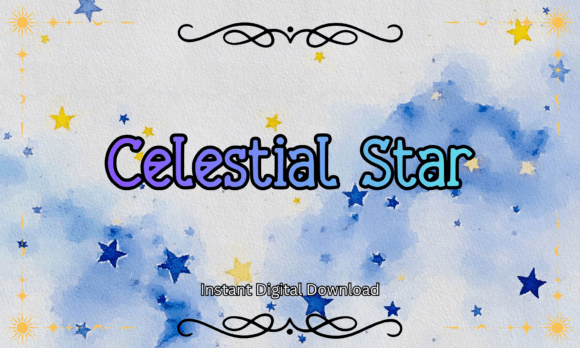
Unlock Your Creativity with Celestial Star Font
Have you ever stared up at the night sky, feeling inspired by the twinkling stars and the endless possibilities they represent? As a designer, you know that moments like these can spark some of your most creative ideas. And that’s exactly what the Celestial Star Font is designed to capture – the magic and wonder of the celestial world, in a font that’s as cute as it is versatile.
Celestial Star Font is a rounded display font that adds a soft, playful touch to any design. With its star-inspired details and dreamy aesthetic, it’s the perfect choice for creators who want to add a little bit of magic to their work. Whether you’re designing stickers, logos, or social media graphics, this font is sure to bring a smile to your face and a touch of whimsy to your designs.
- Hand-drawn, cosmic-inspired design
- Extensive language support, including Cyrillic, Greek, and Devanagari scripts
Celestial Star Font Review
First of all, I’d like to say that the Celestial Star Font is a visually stunning font that’s perfect for any project that needs a touch of magic ✨. The font’s unique blend of celestial and star-inspired elements gives it a whimsical feel that’s sure to captivate your audience.
- The font’s bold and vibrant style makes it perfect for headings and titles ✨.
- The numerous weights and styles available make it easy to customize the font to fit your project’s needs ✨.
- The font is highly legible, even at small sizes, making it perfect for use in digital projects ✨.
- ⚠️ The font may not be suitable for projects that require a more formal or traditional look.
- ⚠️ The font’s complex design may make it difficult to pair with other fonts, so it’s best to use it as a standalone font.
Overall, I’m really impressed with the Celestial Star Font and I think it’s a great addition to any designer’s toolkit. While it may have some limitations, the font’s unique style and versatility make it a must-have for any project that needs a touch of magic ✨.
Tips for Getting the Most Out of the Celestial Star Font
Use the Celestial Star Font to add a touch of magic and whimsy to your designs.
Pair the font with a matching star-shaped graphic or other celestial elements for a cohesive look.
Experiment with different font sizes, colors, and styles to create a unique and eye-catching design.
The Celestial Star Font is perfect for:
Creating invitations for a star-gazing party or a celestial-themed event.
Designing social media graphics for astronomy-related content.
Adding a touch